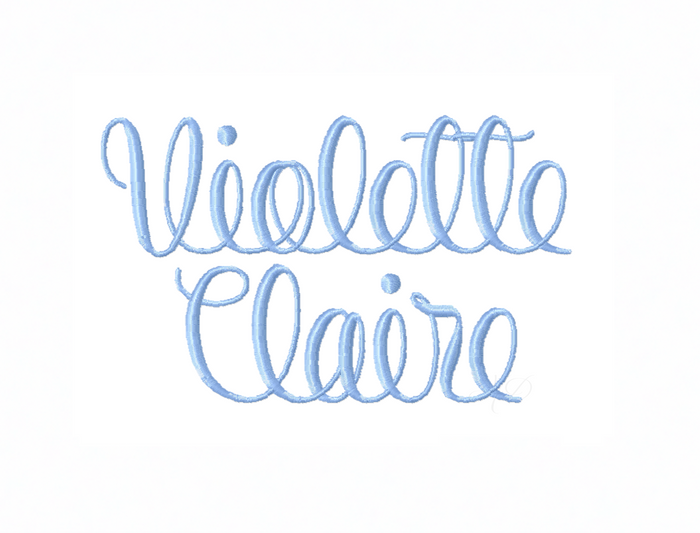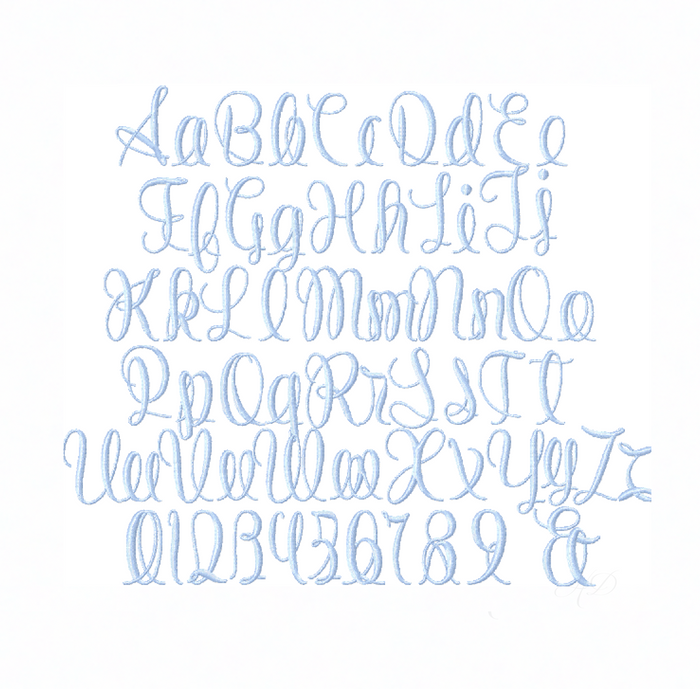
Violette Claire Script Embroidery Font
Transform your embroidery projects with the Violette Claire Script Embroidery Font. This stylish font package features modern handwriting in five versatile sizes: 1", 1.5", 2", 2.5", and 3". Perfect for adding a touch of elegance, it includes uppercase and lowercase letters A-Z, numbers 0-9, and the & symbol.